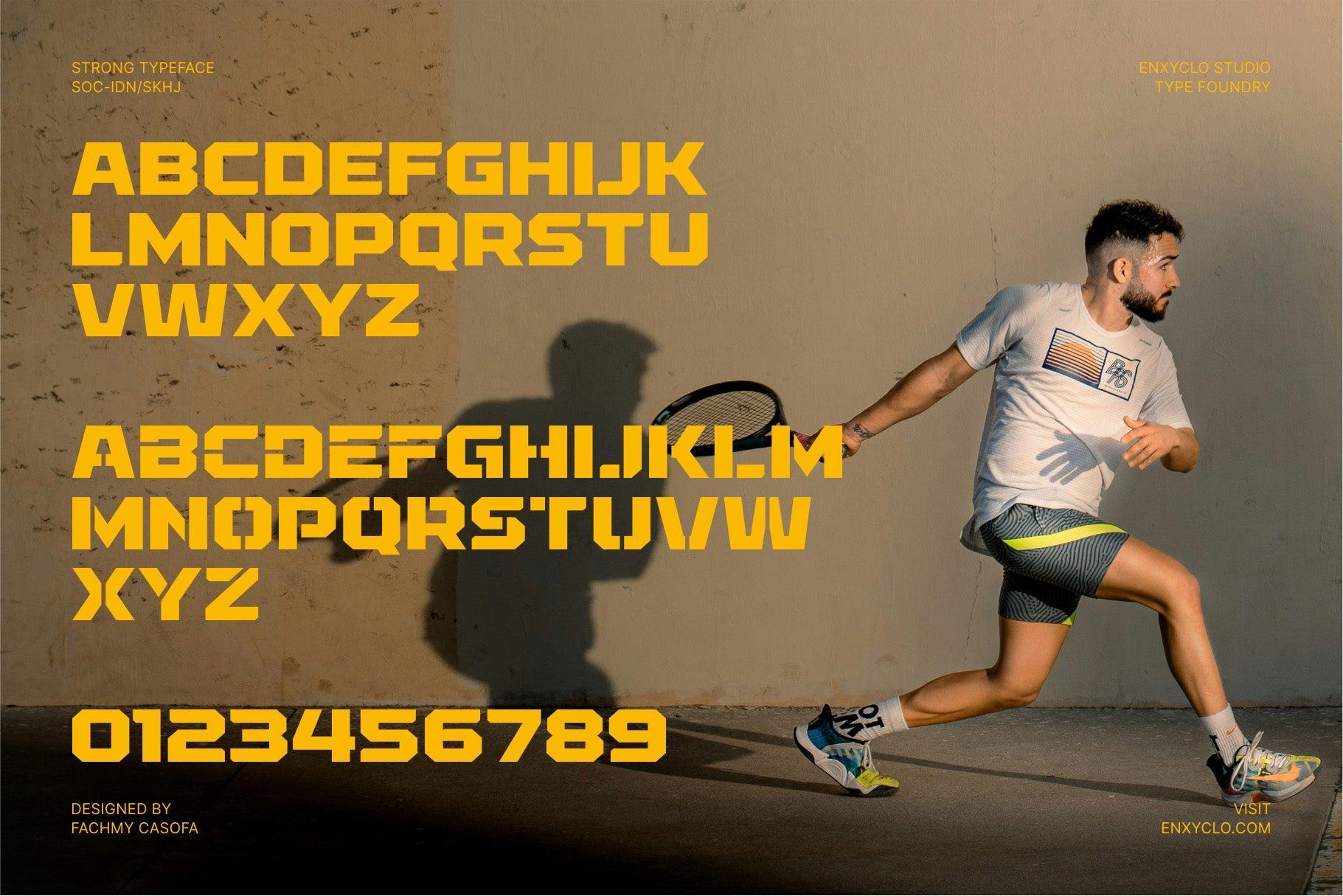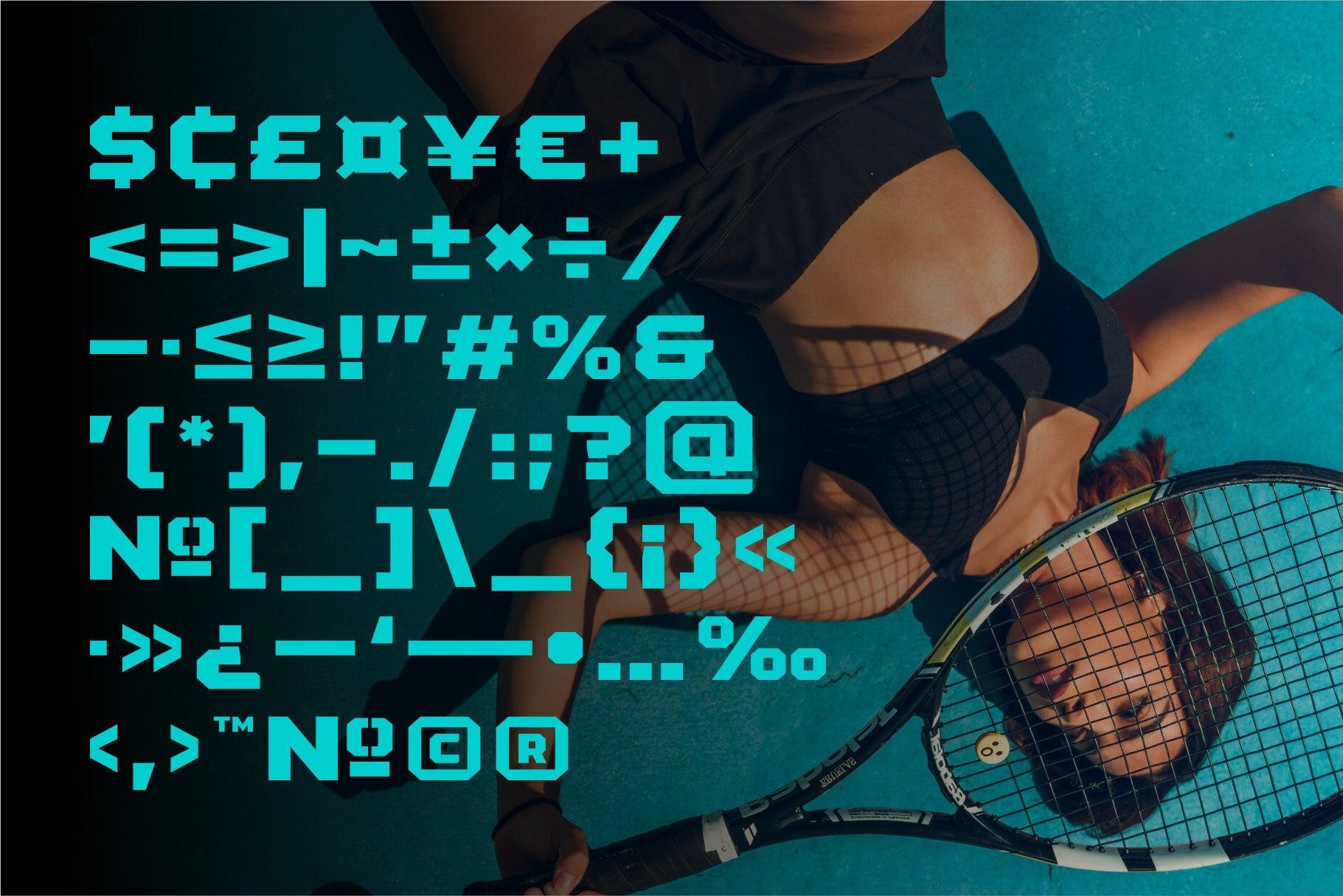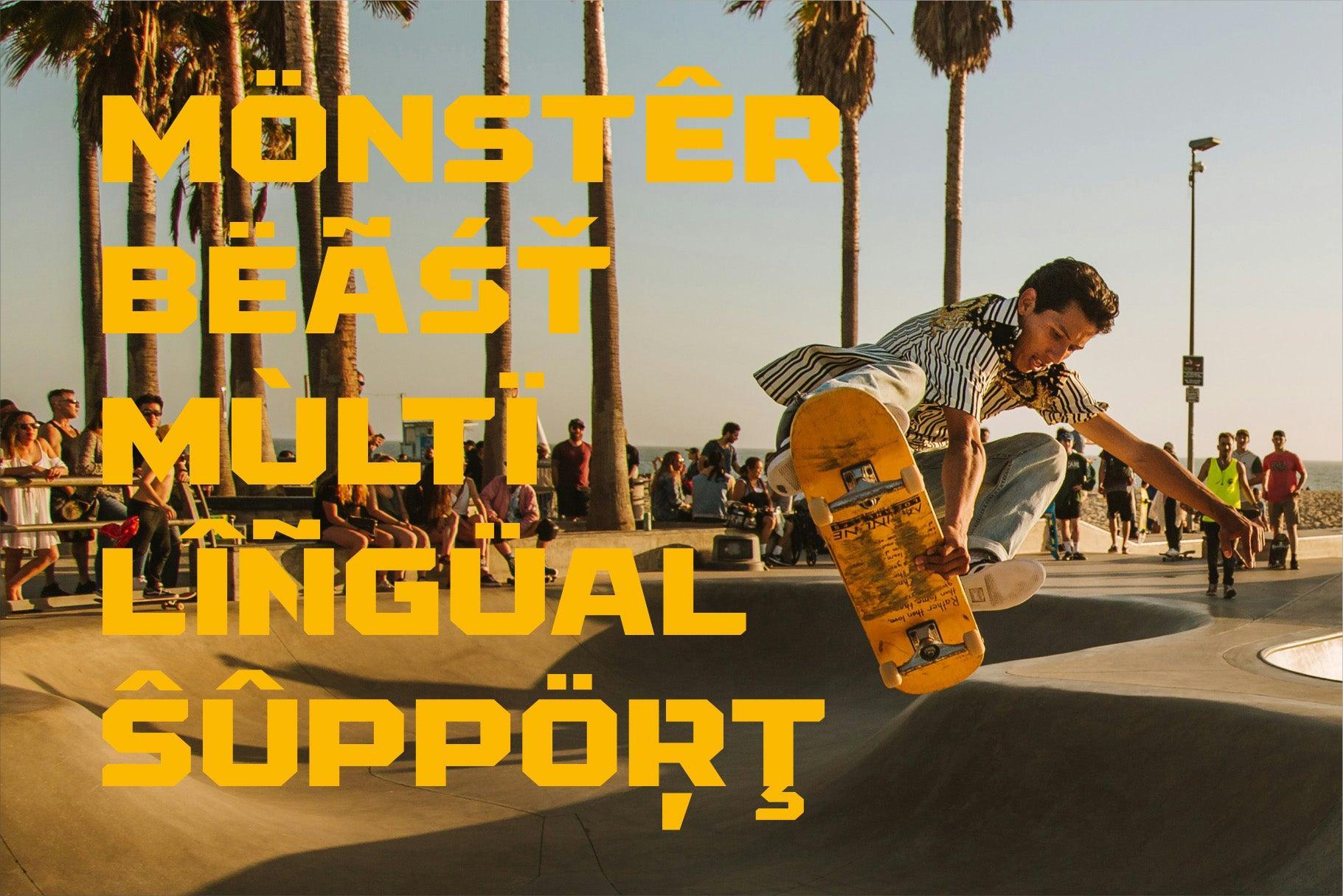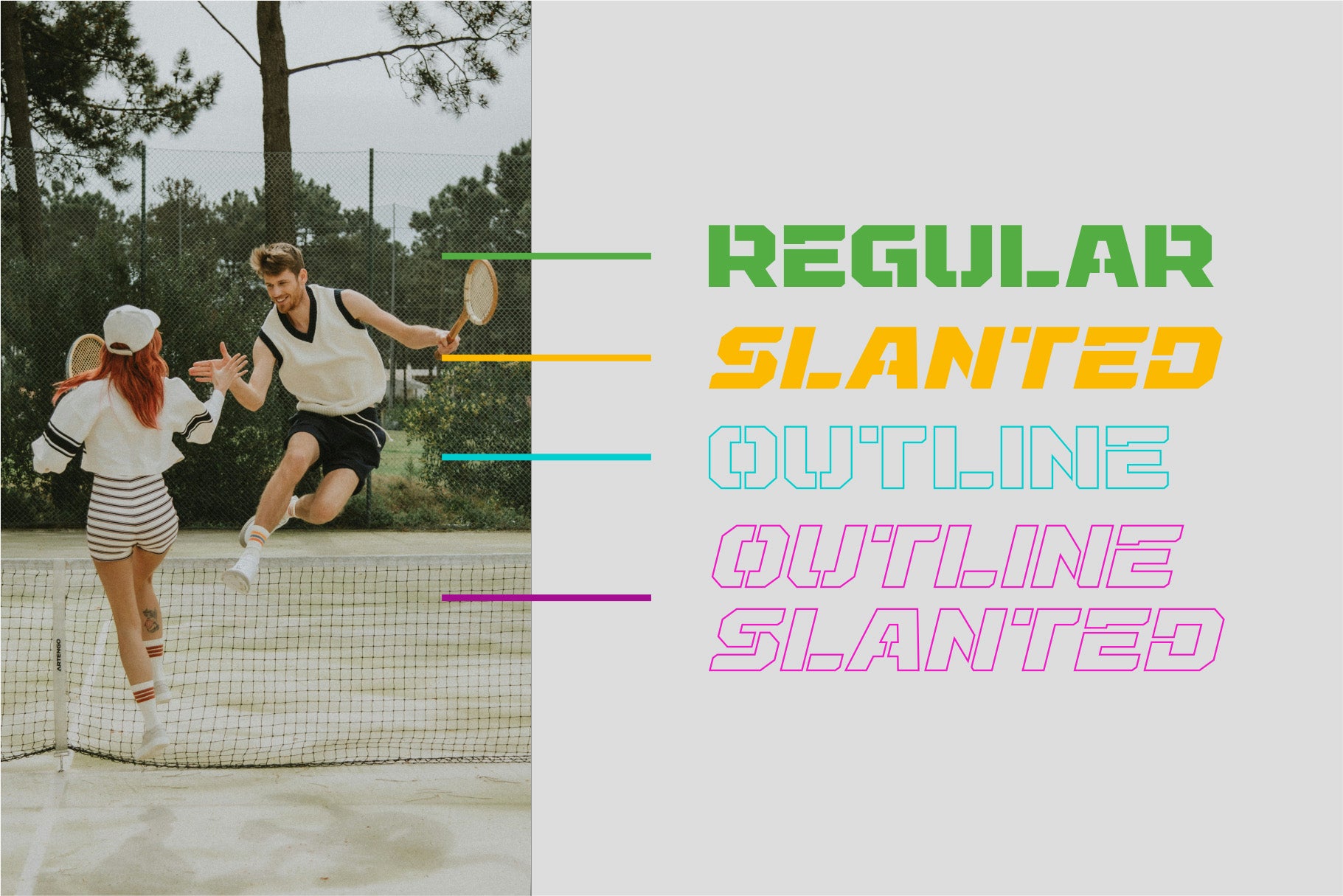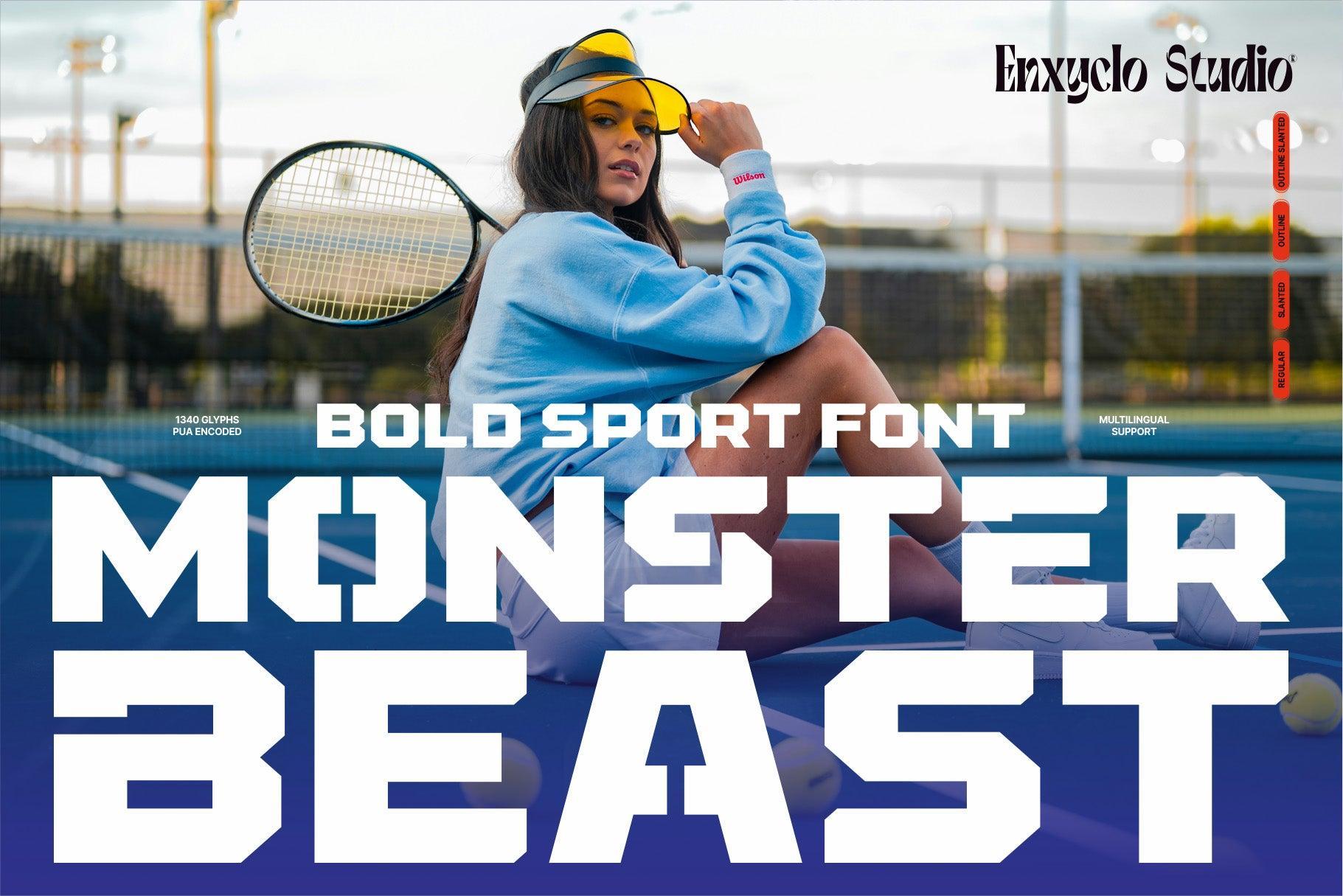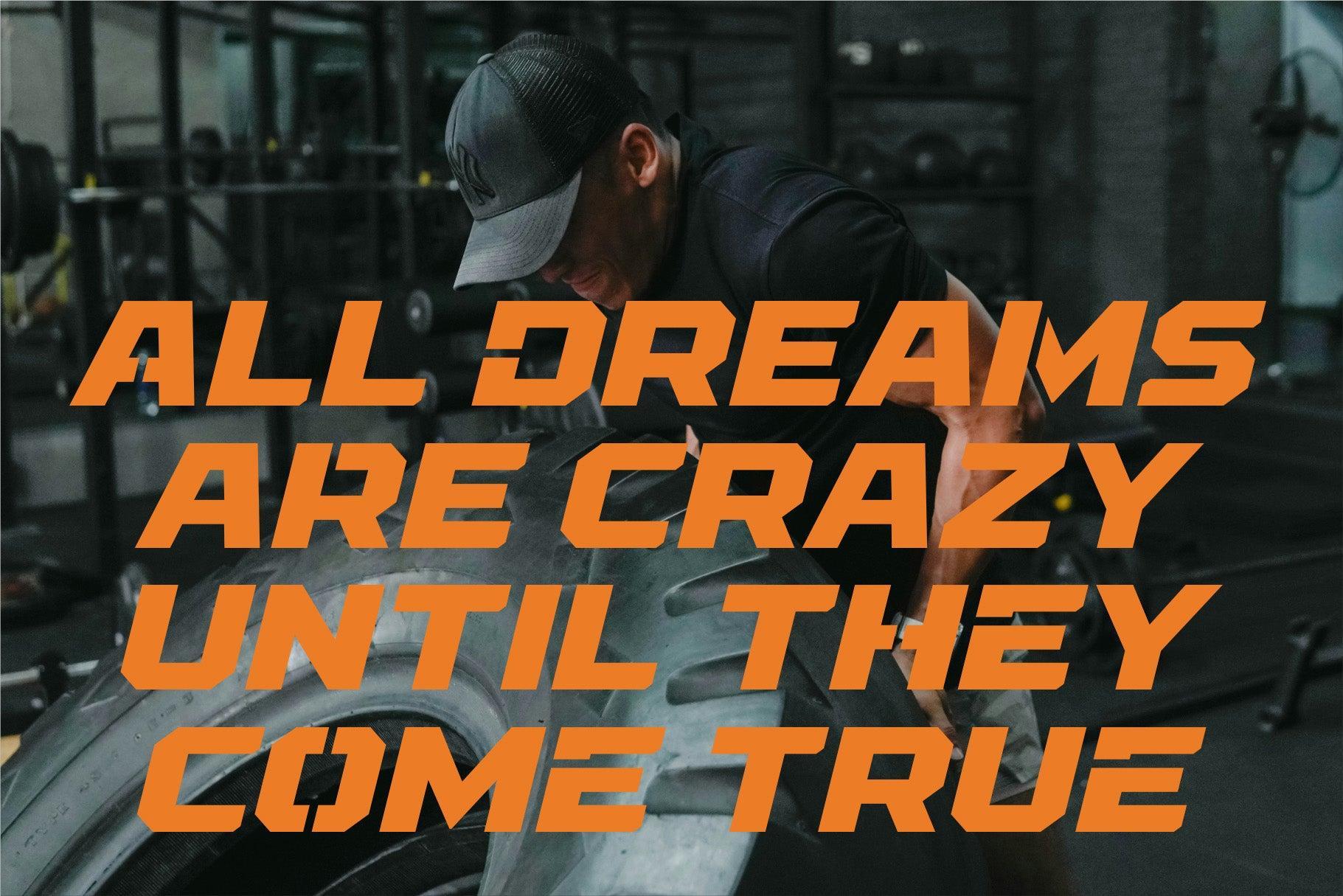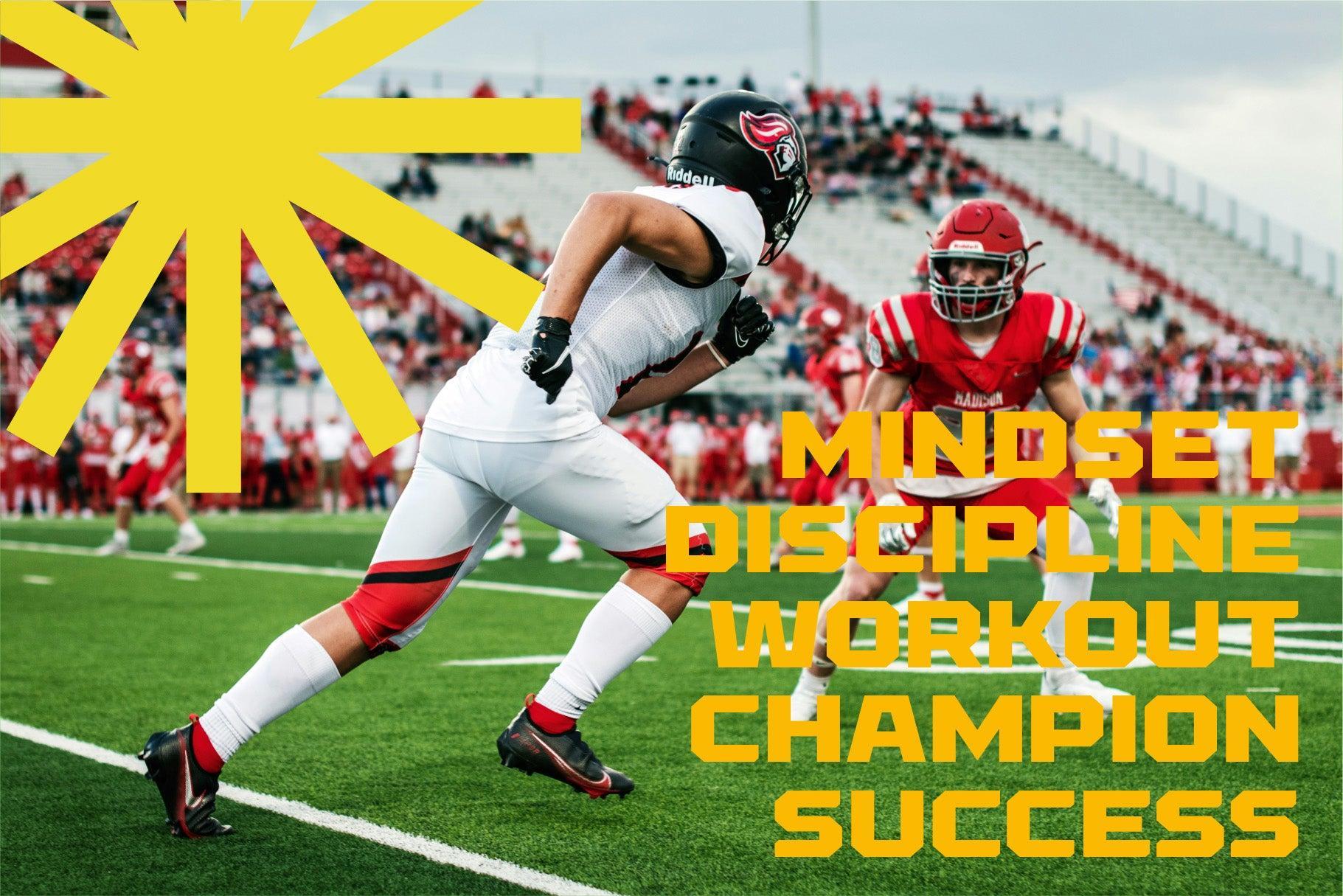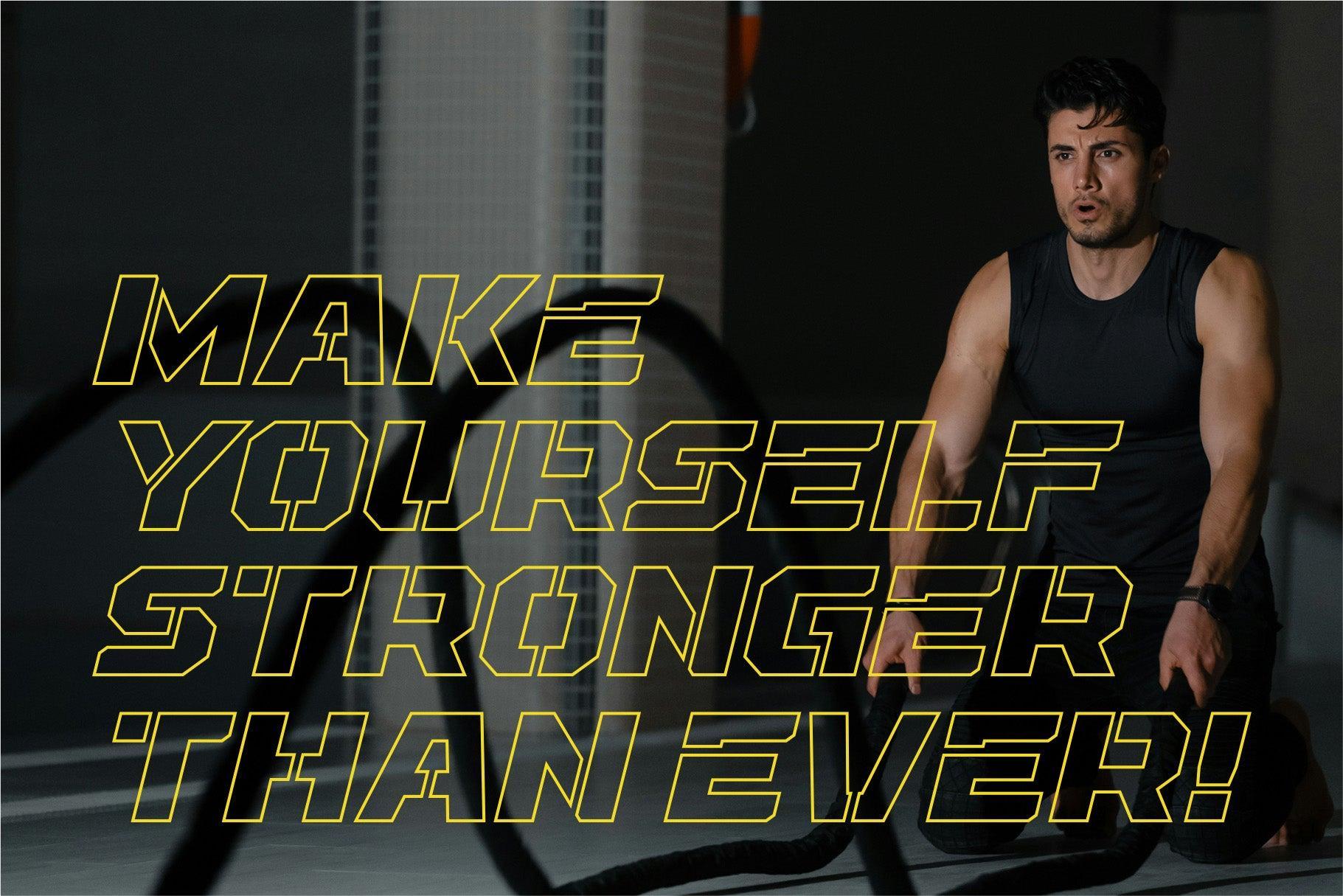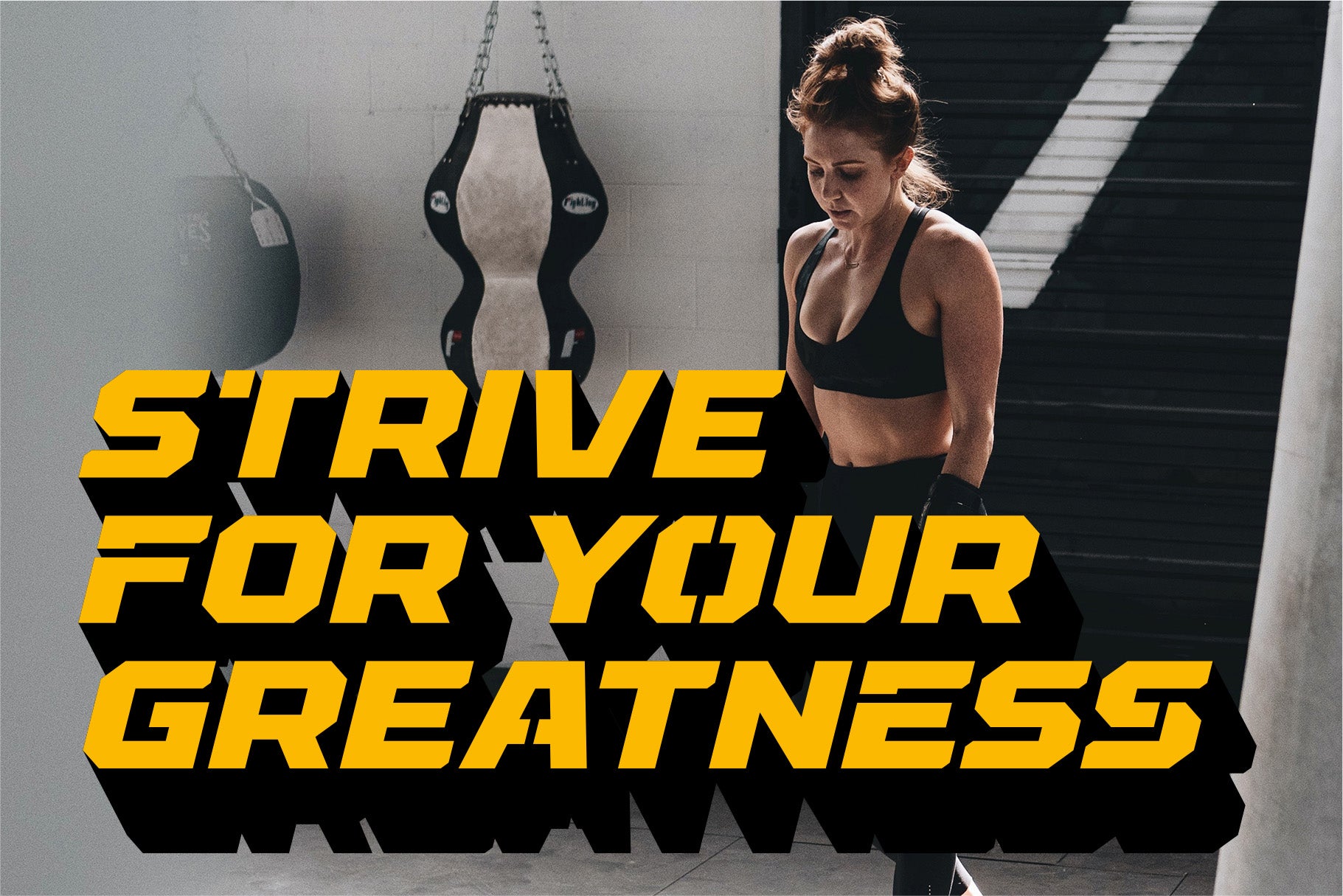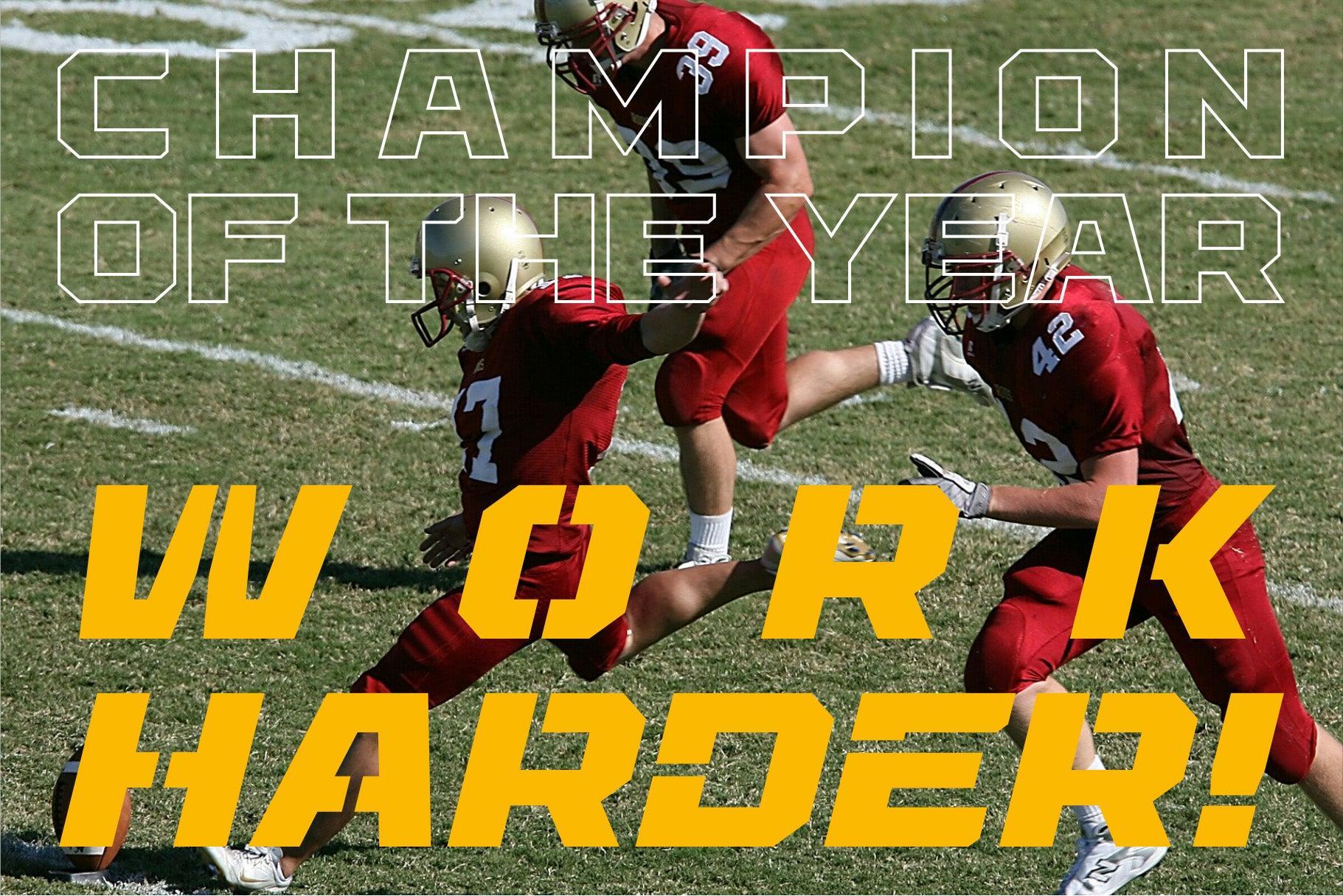
Monster Beast - Sport Font
MONSTER BEAST
Monster Beast - Sport Font is a versatile gym sport font available in True Type (TTF) and Open Type (OTF) formats, as well as Web Open Font Format (WOFF1 & WOFF2). It features four styles (Regular, Slanted, Outline, Outline Slanted) with a total of 1,340 glyphs, including uppercase, lowercase, numerals, punctuation, and symbols, along with multilingual support.
Ideal for bold sports branding and dynamic fitness marketing. Perfect for headlines, posters, logos, and magazine layouts, ensuring impactful visibility and a strong visual presence in any creative project.